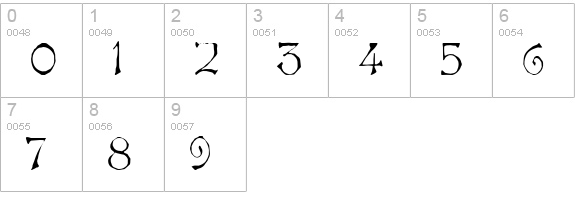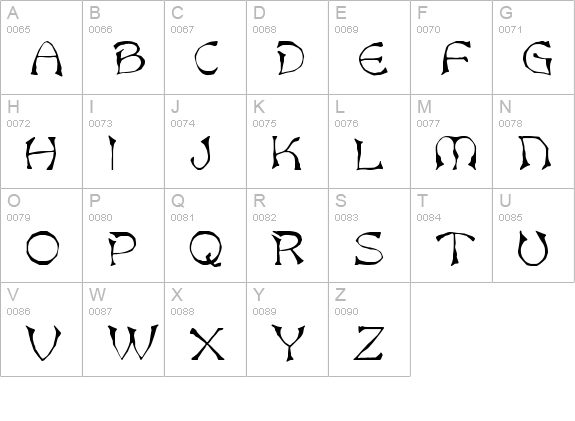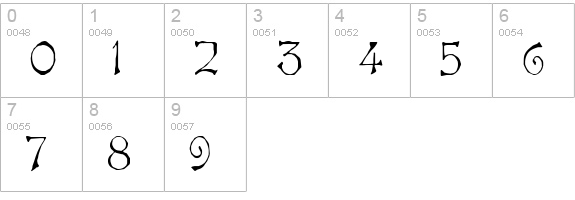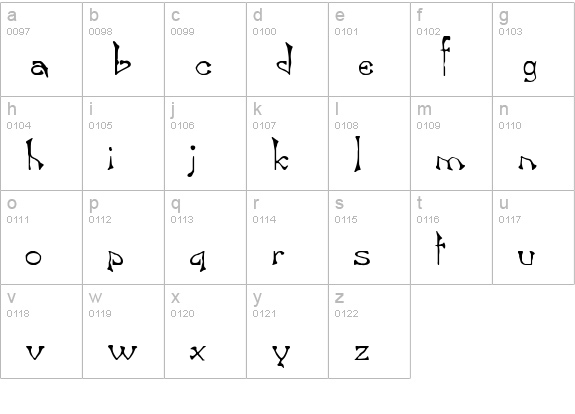
Introducing Bard font – a charming and elegant typeface perfect for adding a touch of sophistication to your projects. With its graceful curves and refined serifs, Bard font exudes a sense of timeless beauty and class. The versatility of this font makes it suitable for a wide range of design applications, from invitations and branding to packaging and editorial design. What's even better is that Bard font is available for free download at FontsMarket.com! Yes, you read that right – you can easily access this exquisite font without any cost. So why wait? Enhance your designs with the allure of Bard font today and elevate your creations to a whole new level of elegance and style. Download now and let your creativity shine with this stunning typeface.